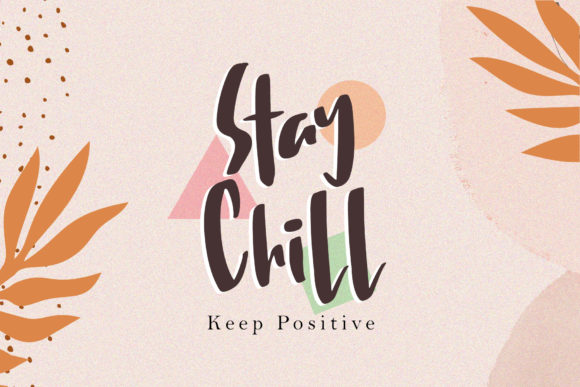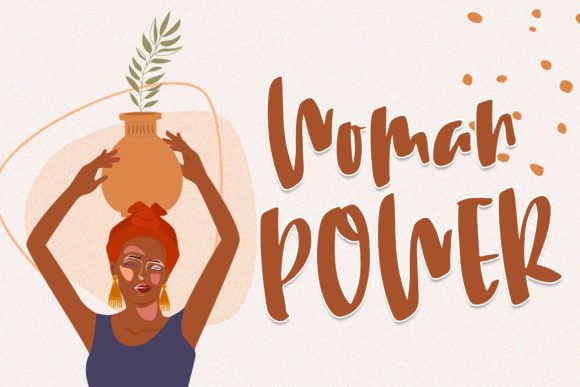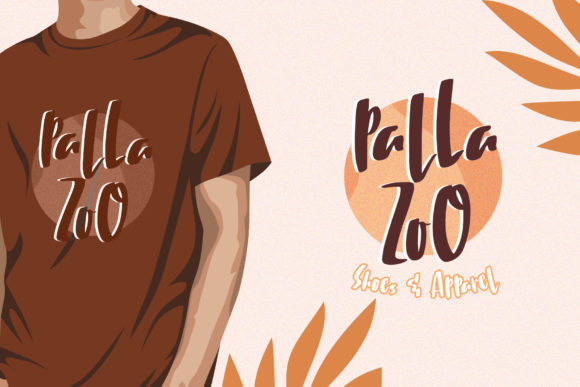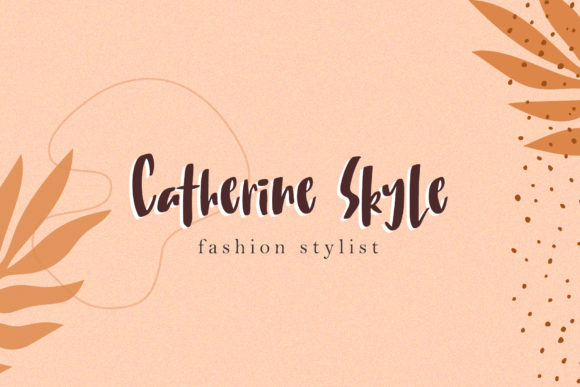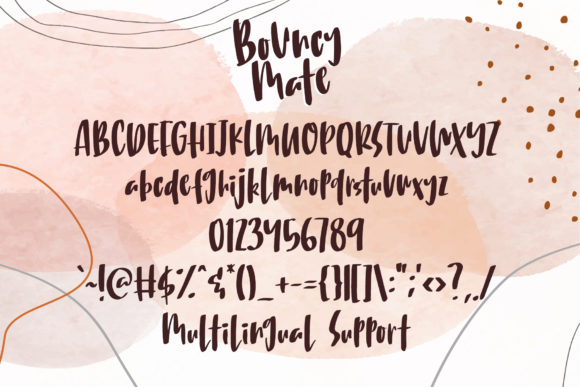
Unleashing Your Creativity with the Bouncy Mate Font
Have you ever found yourself stuck in a creative rut, struggling to come up with the perfect idea? It’s like trying to spark a flame that just won’t catch. But then, something magical happens – you stumble upon the perfect tool, and suddenly your imagination is ignited. For designers, this ‘aha’ moment often comes in the form of a unique and captivating font.
Enter the Bouncy Mate Font, a bold and quirky handwritten font that’s perfect for adding a touch of personality to your designs. With its playful and whimsical feel, this font is ideal for capturing the essence of your brand’s unique voice and style. Whether you’re creating a logo, brochure, or social media campaign, the Bouncy Mate Font is a valuable addition to any designer’s toolkit.
Bouncy Mate Font Key Features
- Unique Characteristics: The Bouncy Mate Font features a playful, bouncy feel, making it perfect for children’s books, cartoons, and other fun designs.
- Kerning and Ligatures: Includes advanced kerning and ligature pairs for professional-looking typography.
Bouncy Mate Font Review
Overall, I’m impressed with Bouncy Mate Font. ✨ The unique, playful style makes it perfect for creating eye-catching headlines and adding a touch of whimsy to your designs. The font’s versatility shines through in its ability to work well in both digital and print mediums. ✨ The rounded edges and bouncy feel evoke a sense of fun and approachability, making it ideal for children’s content, entertainment brands, and even some food or beverage labels.
However, there are a few limitations to consider. ⚠️ For one, the font’s expressiveness can sometimes make it difficult to read in smaller sizes. Additionally, the bold weights can feel a bit overpowered, making the text harder to decipher. ⚠️ It’s essential to use Bouncy Mate Font judiciously, balancing its playful nature with clarity and readability.
Design Considerations:
- Use in larger sizes to maximize the font’s impact.
- Combine with a clean, simple sans-serif font for contrast.
- Avoid using the bold weights in body text.
- Experiment with different color combinations to enhance the font’s visual appeal.
With some careful consideration and use, Bouncy Mate Font can add a delightful touch to your designs.
Bouncy Mate Font Practical Application Guide
Getting the Most Out of Bouncy Mate Font
For best results, use Bouncy Mate font in designs where you want to convey a sense of playfulness or informality. It pairs well with bold, bright colors and fun graphics. Experiment with different font sizes and combinations to add visual interest to your designs.
Bouncy Mate font is perfect for:
- Designing children’s products or packaging
- Creating social media graphics or ads
- Adding a playful touch to business cards or flyers
- Designing party invitations or decorations
Comparison to Bouncy Mate Font: While Bouncy Mate Font has a more playful, handwritten feel, Oswald Font is more formal and structured. Oswald is a great choice for designers who want to convey a sense of professionalism and sophistication.